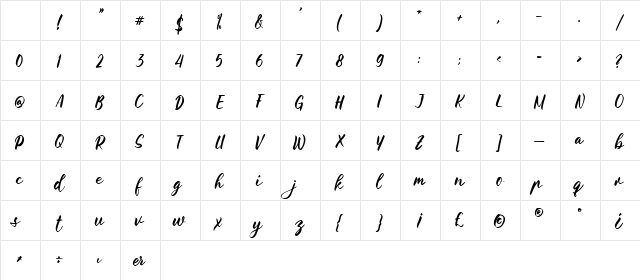
Complete The Florist Handwriting Regular glyph index. Displaying only characters natively supported by The Florist Handwriting Regular font.
The Florist Handwriting flows with the natural rhythm of handwritten lettering, making it ideal for designs that call for warmth and personal expression.
Font Pairing: Combine The Florist Handwriting with a simple geometric sans for maximum contrast - the tension between flowing curves and clean structure is a classic typographic pairing.
Pro Tip: Use The Florist Handwriting for short runs of text - names, titles, or taglines. Extended body copy in script faces tires the eye quickly.